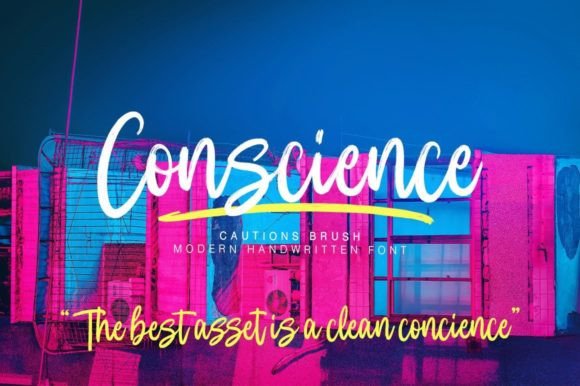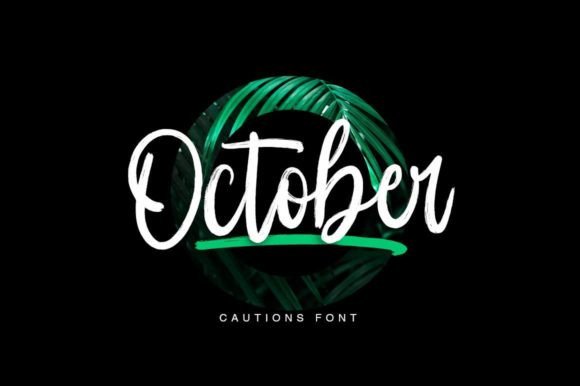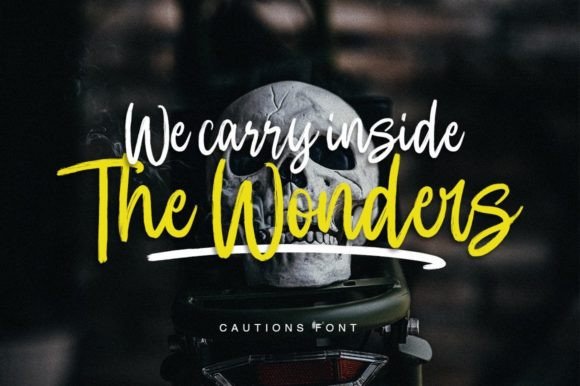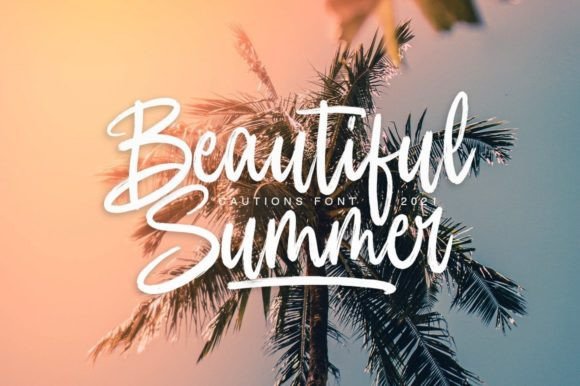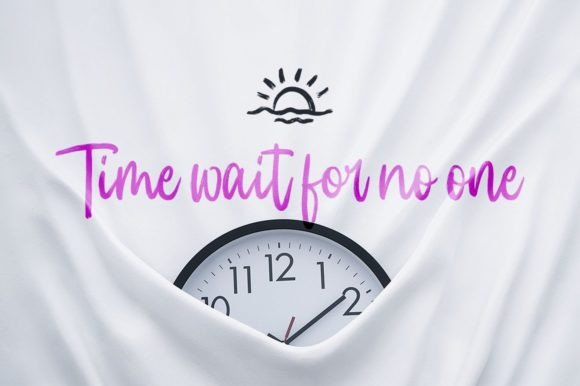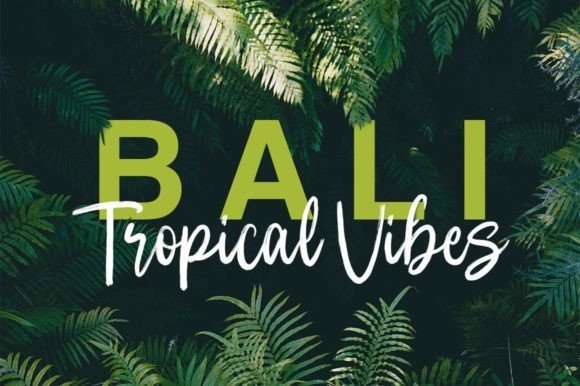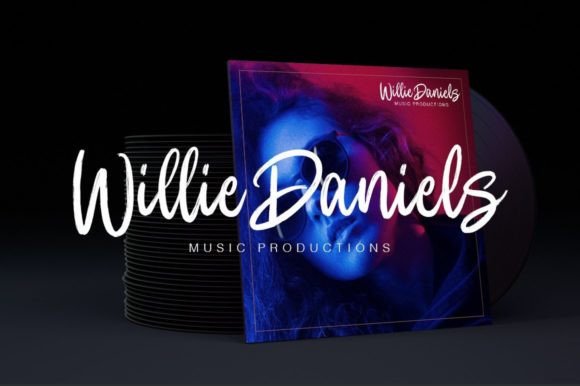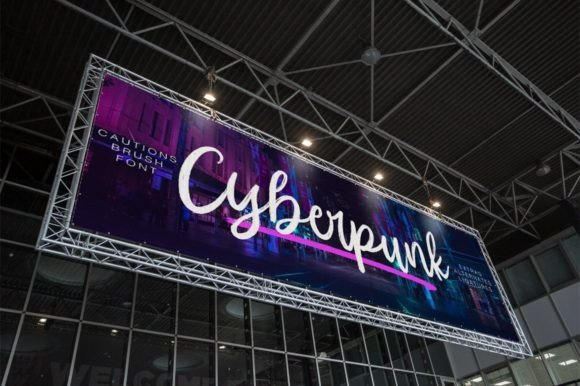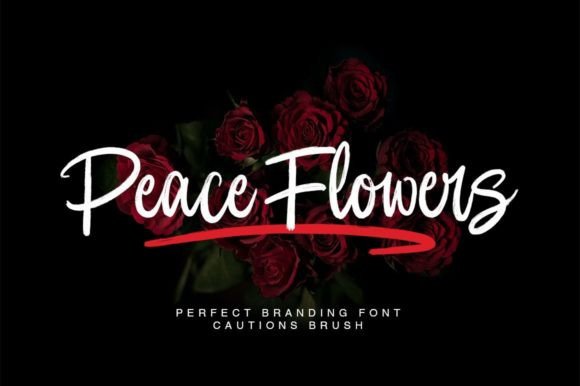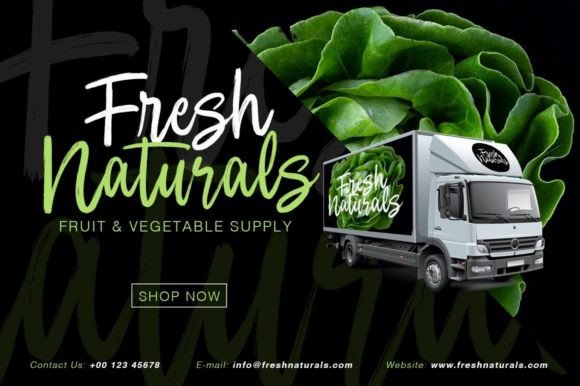
Cautions Font
About Cautions Font
“Cautions: Where Fun Meets Elegance in Handwritten Typography
Introducing Cautions, a fabulously fun yet elegant script font bursting with energy and creativity. This font is not just a typeface; it’s a burst of inspiration, allowing you to create beautiful hand-made typography in an instant. With its extra bouncy curves and loops, Cautions is designed to make your text stand out with a touch of playfulness and sophistication. Perfect for logos, printed quotes, invitations, cards, product packaging, headers, and whatever your imagination holds, Cautions adds a dynamic and stylish flair to your designs, making them visually captivating and full of life.
The allure of Cautions lies in its fun and energetic nature, where each letter is crafted with bouncy curves and loops that exude a sense of playfulness and creativity. Its dynamic strokes create a visual rhythm that instantly catches the eye, making your text come to life with vibrancy and excitement. Imagine your logos adorned with Cautions’ lively script, adding a touch of fun and energy to your brand identity. Picture your printed quotes featuring its elegant yet playful letterforms, transforming ordinary words into visually appealing artworks. With Cautions, your designs become a canvas for creativity, allowing you to experiment with various styles and create eye-catching typographic masterpieces.
One of Cautions’ standout features is its versatility. Its fun and elegant design allow it to adapt seamlessly to a wide range of applications, from invitations and cards to product packaging and headers. Whether you’re designing invitations for a joyful celebration, creating playful product packaging, or working on any project that demands a lively and stylish touch, Cautions enhances your designs with its dynamic energy, making them stand out with a unique blend of fun and elegance.
Moreover, Cautions is more than just a font; it’s a source of inspiration and creativity. Its fun and energetic vibe resonate with individuals who appreciate the joy of playful typography, making it a favorite among designers and enthusiasts seeking a font that exudes charm and liveliness. Its presence adds a layer of excitement and artistic flair to your designs, making them visually captivating and unforgettable.
In a world where creativity knows no limits, Cautions helps you make a statement. It speaks the language of fun and elegance, resonating with those who appreciate the beauty of handwritten artistry with a playful twist. Whether you’re designing for celebrations, branding, or any creative endeavor, Cautions becomes your trusted companion, guiding you toward design excellence.
So, why settle for ordinary when you can embrace the extraordinary with Cautions? Let this fabulously fun yet elegant script font be the muse for your creative expressions, and watch as your projects come to life with energy, charm, and dynamic creativity. Let your creativity flow, and let Cautions be the brushstroke that paints your ideas into visually captivating masterpieces, leaving a lasting impression on the hearts of your audience.”